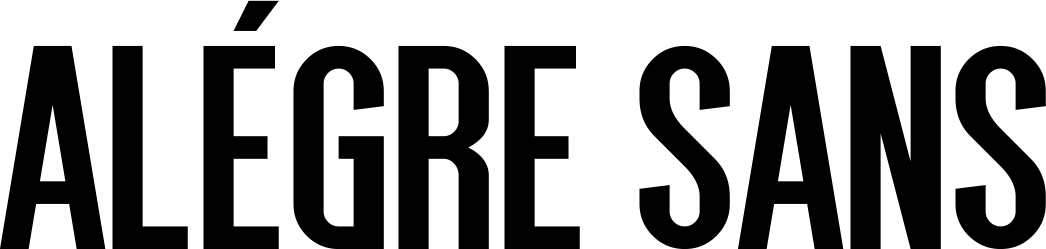
Alégre Sans Font
You will find many different fonts on the internet but the good ones are not so common. Here is Alégre Sans, simple and captivating! It can be used for flyers, books, magazines, newspapers, etc. We should mention that this sans serif font doesn’t support lowercase letters. Dive deeper into our website to find more resources.
Alegre Sans is a free condensed sans-serif typeface designed by GrandChaos9000.UPDATE LOG: